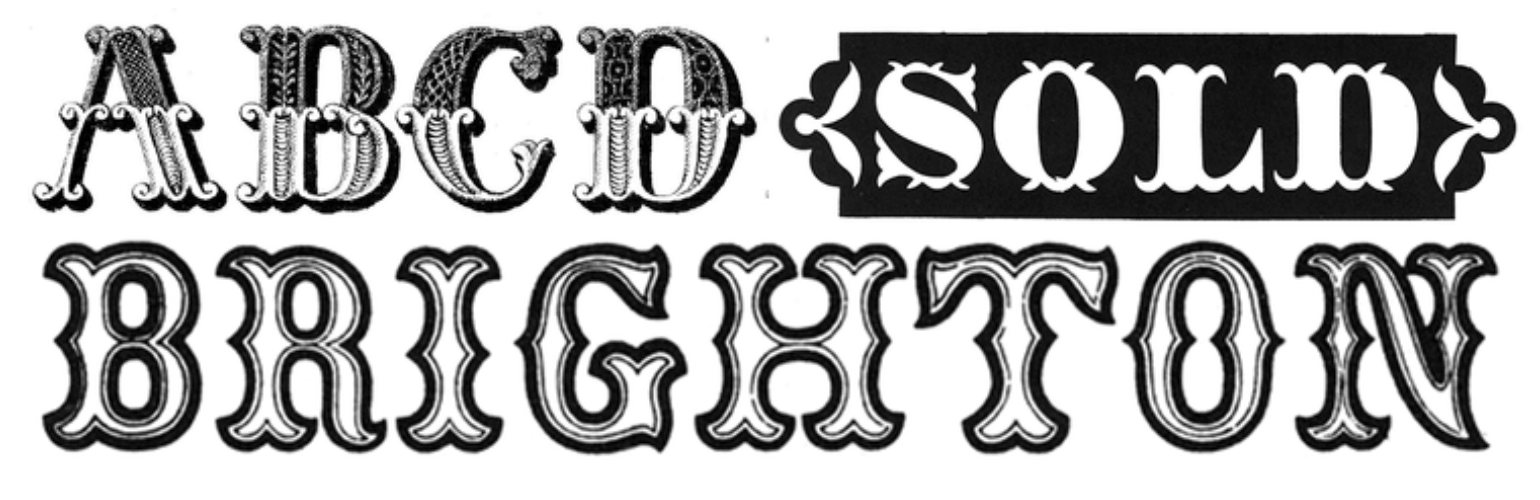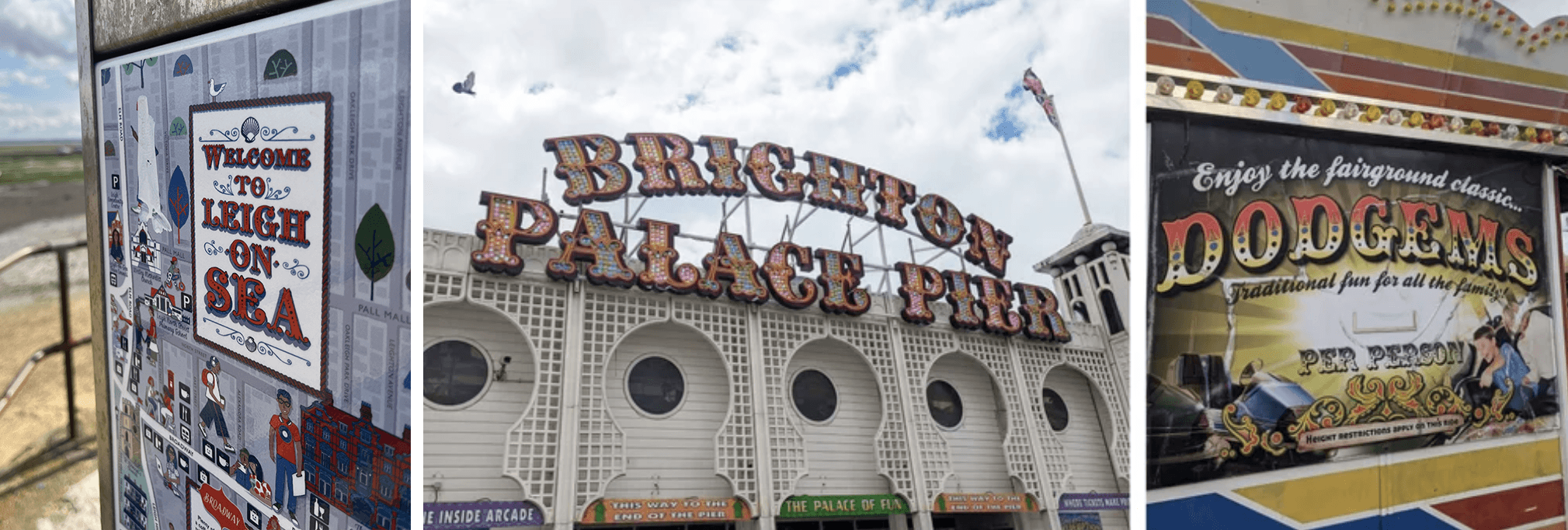
Wishing you a bright, sunny welcome!
As I write this I am thinking about the day trips I have planned to the seaside. Or as a proper grown-up might put it, "we're heading to the coast". I do love a seaside trip. The candy floss (dentist appointment already booked in my head), the fish and chips (why do they always taste better there?) and of course the pier. As a child the pier felt endless. Every step was a delight. The amusement arcades, the ice-cream sellers, hook-a-duck, the death-trap waltzer and then finally at the end you get the sea. As far as you can see!
My dream is still to live by the coast one day (yes me, a proper East Londoner). The seaside has always been the perfect escape for us city folk. A chance to breathe some fresh air and slow down for a minute.
Well, doesn’t this tie in nicely with… seaside fonts! Almost like I planned it… Let’s take a look at Tuscan fonts.
Above is a collection of Tuscan fonts, often thought of as cowboy/Western or circus/carnival fonts. They became popular in coastal resorts during the Victorian era. A Tuscan font is a typeface with two (“bifurcated”), three (“trifurcated”) or more curly fancy bits branching off each serif. Serifs are the little pointy bits on the ends of some fonts. Tuscan fonts are highly decorative, often illuminated by lights.
Makes you think of festivals, fun and frolics. And the more colour the better! Definitely one for signs and headlines, not body text.